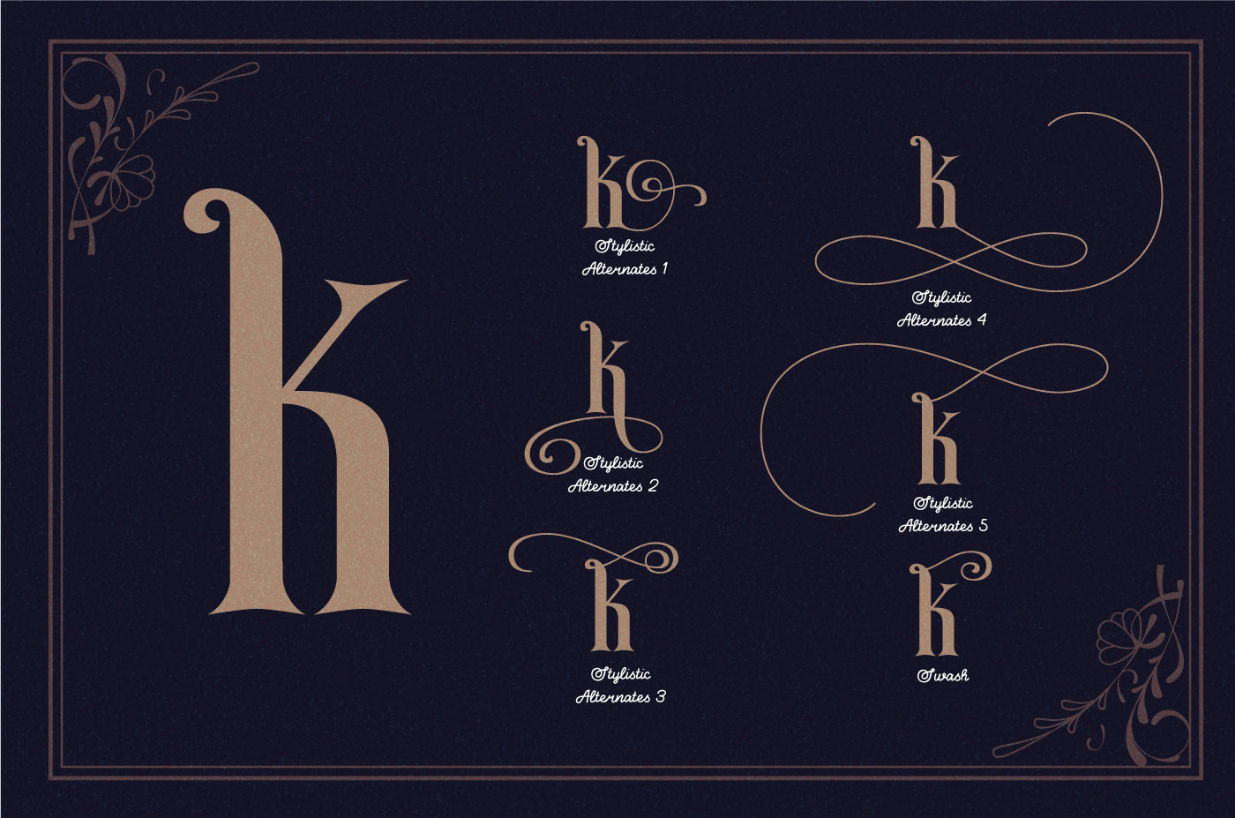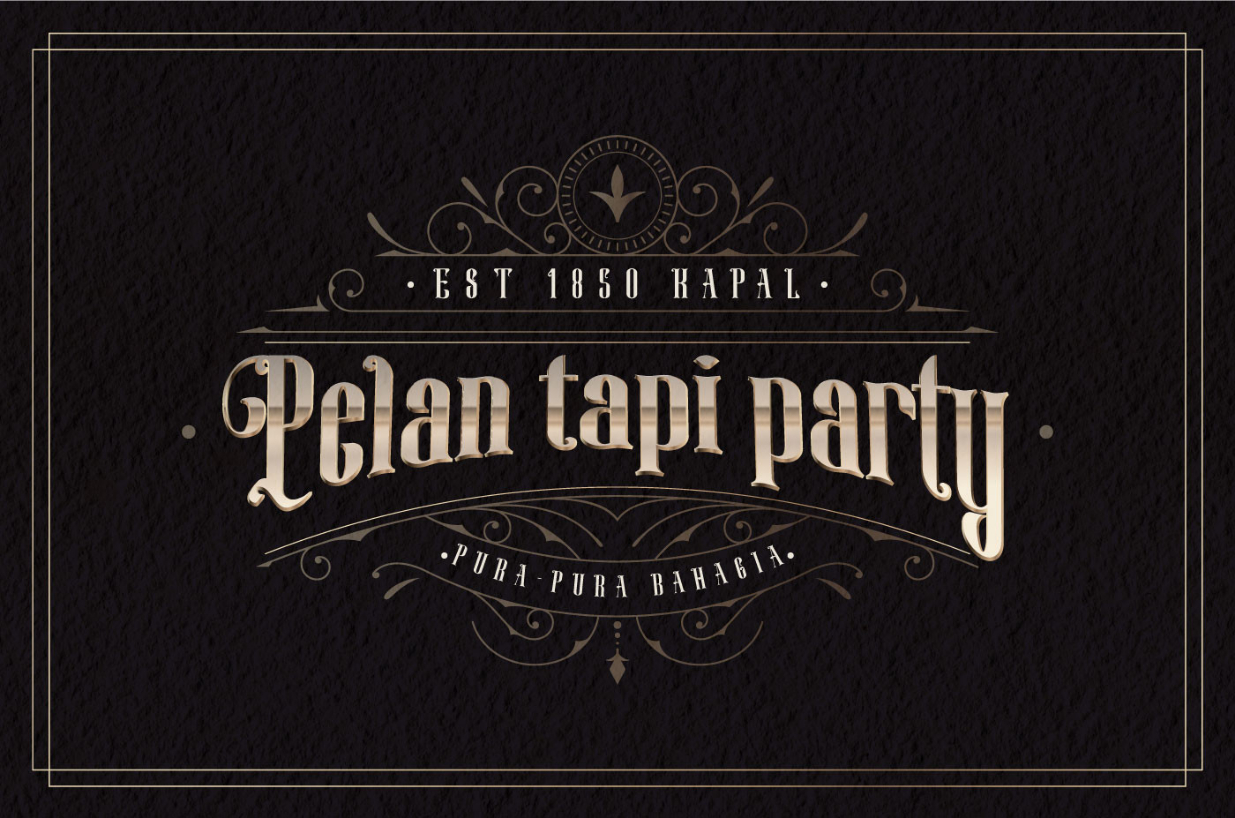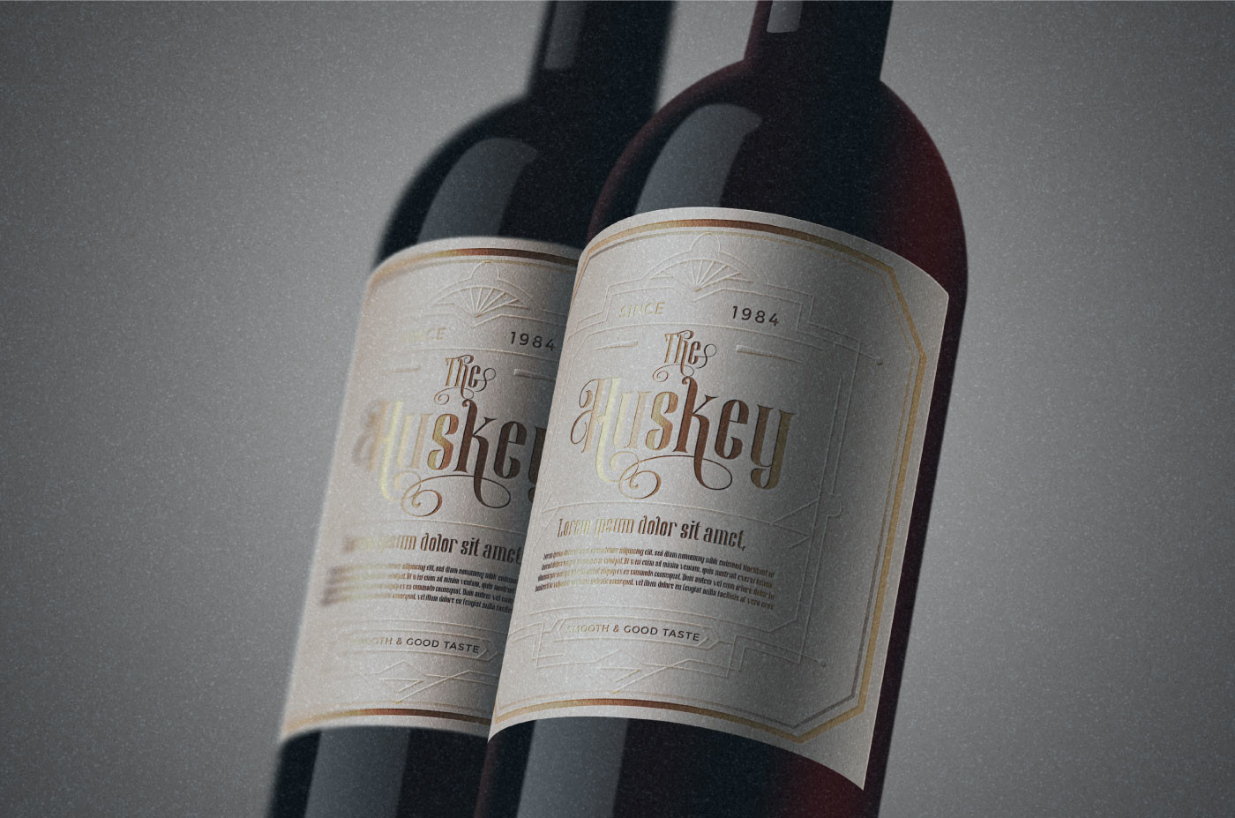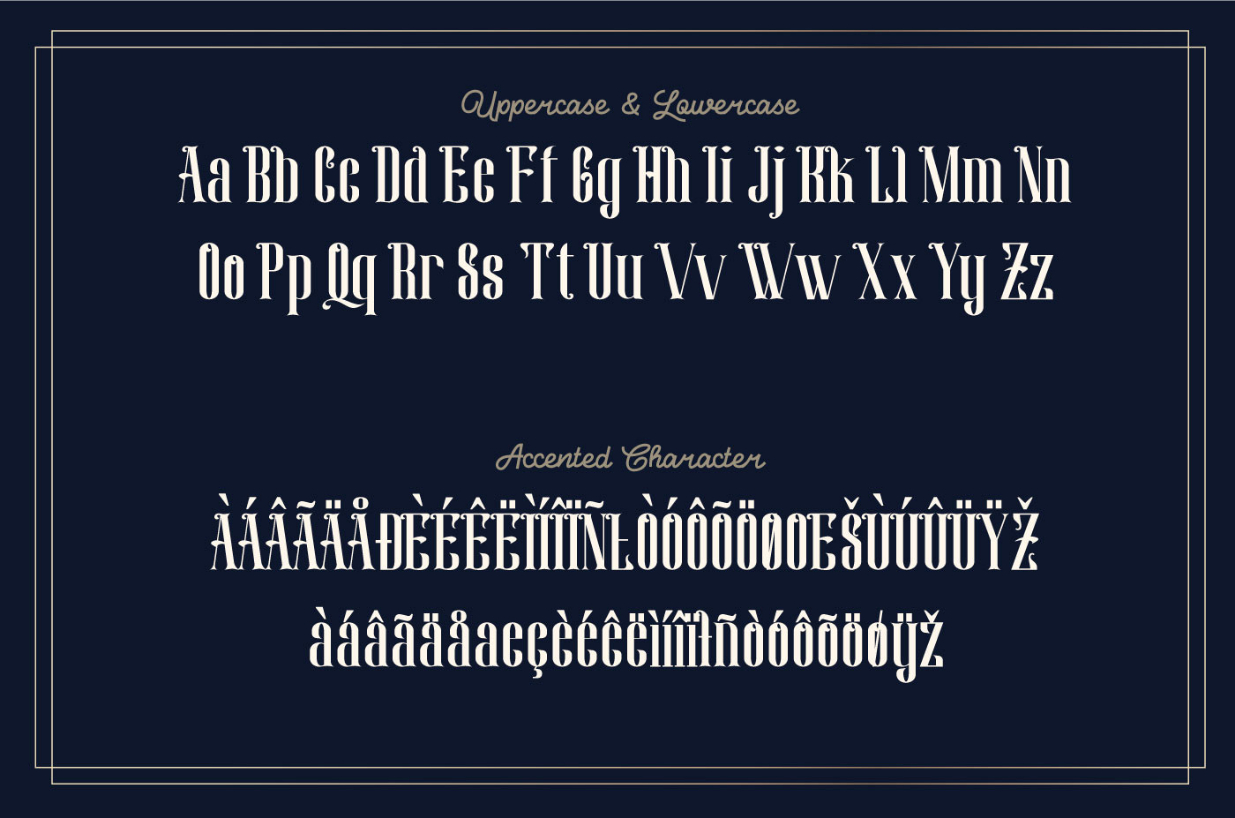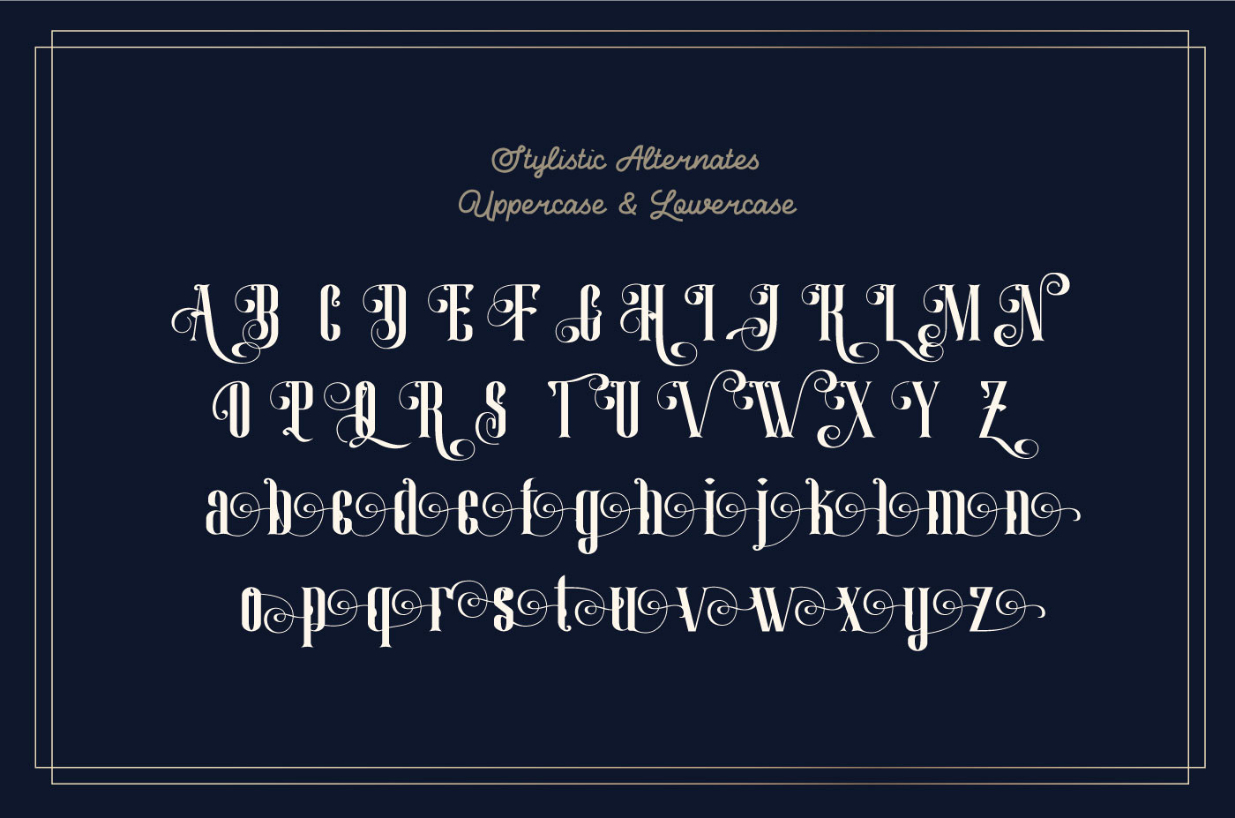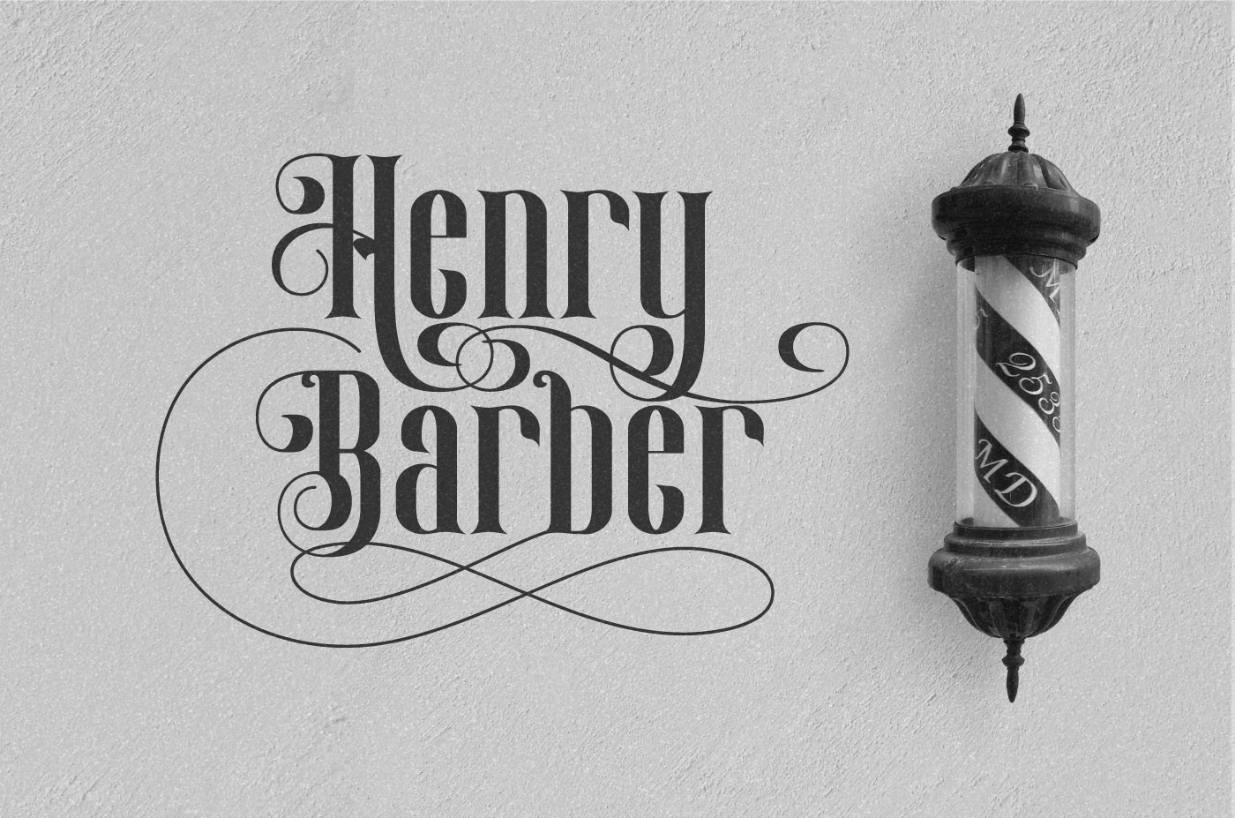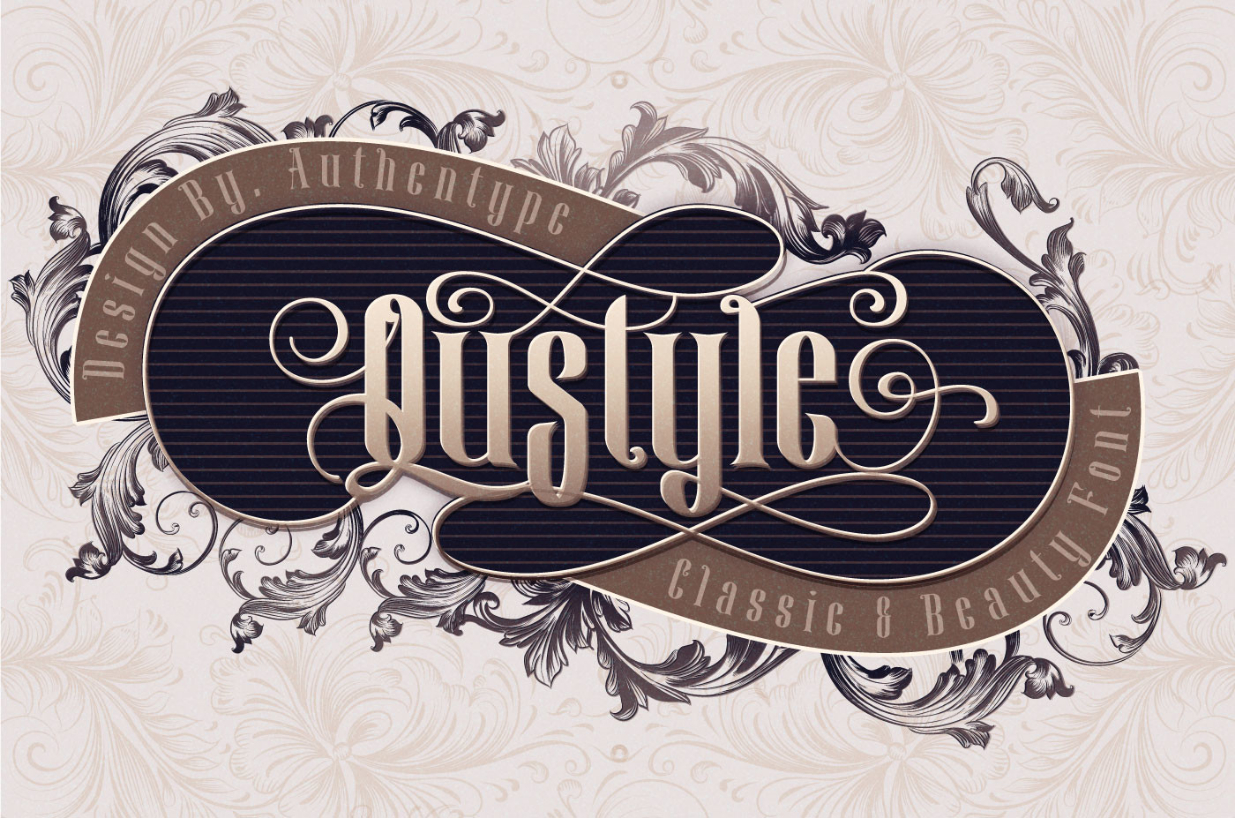
Qustyle Font
About Qustyle Font
Qustyle is a stunning blackletter font with a vintage touch and an exquisite vibe. It will look excellent on labels, product packaging, logos, watermarks, and other projects!